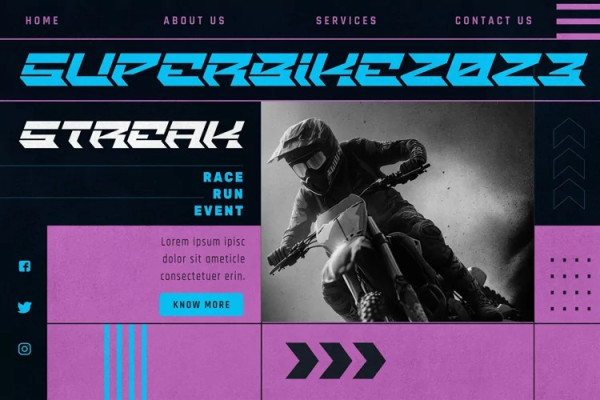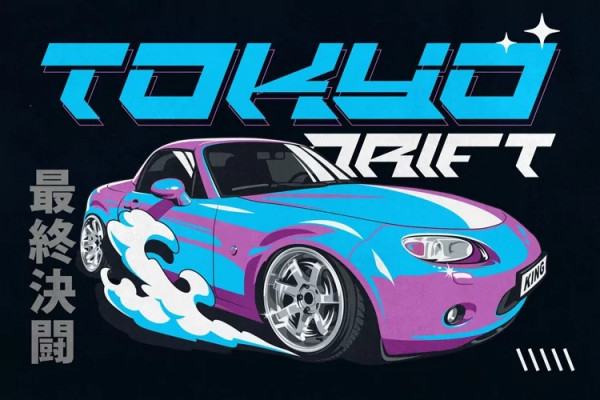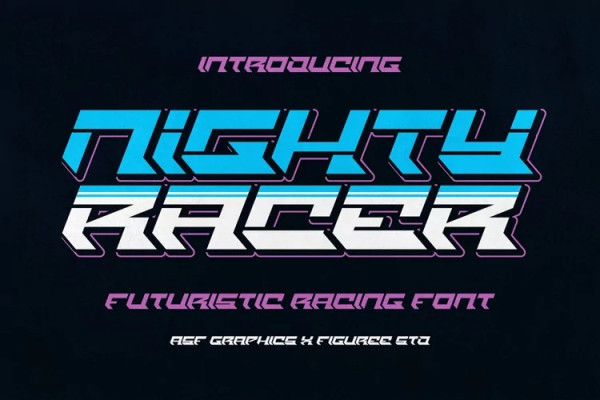
Nighty Racer Font
Nighty Racer Font is a captivating and futuristic racing font that perfectly captures the essence of speed, energy, and adrenaline. Inspired by the sleek lines and aerodynamic aesthetics of high-speed vehicles, this font features sharp angles, dynamic curves, and a bold, futuristic look. Its letters are designed to evoke a sense of motion, with elongated forms and streamlined shapes that give a feeling of velocity and forward movement.
The font’s clean and futuristic appearance makes it ideal for various racing-themed designs, including posters, logos, video game titles, and any project that demands a modern, high-tech aesthetic. With Nighty Racer, you can infuse your designs with an exciting and futuristic vibe that will surely grab attention and convey the thrill of speed.